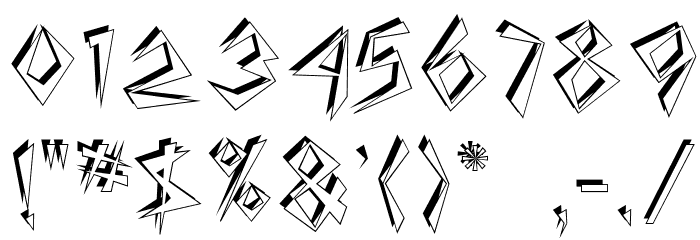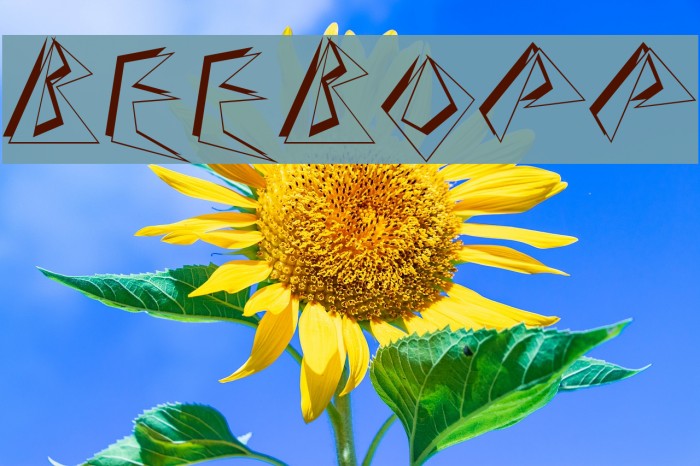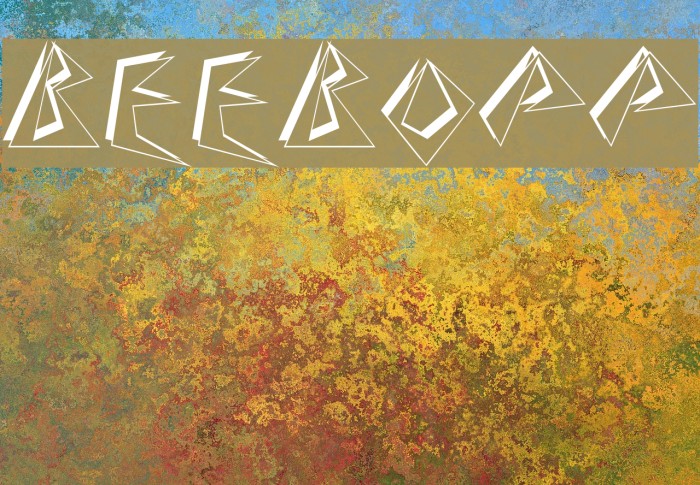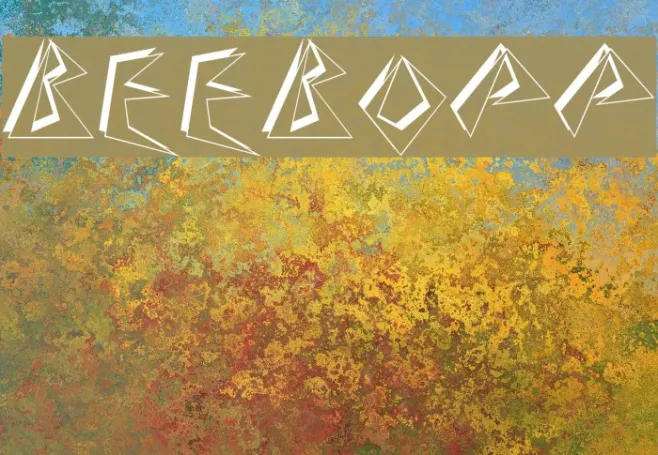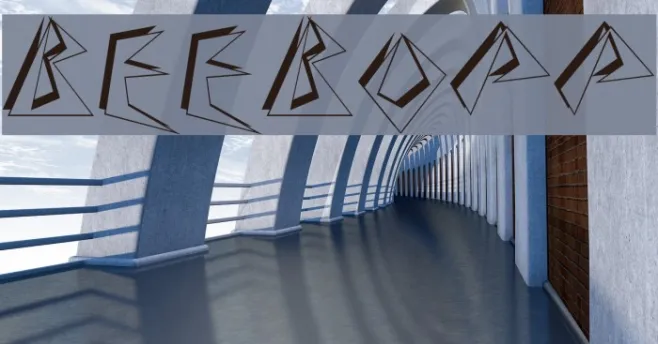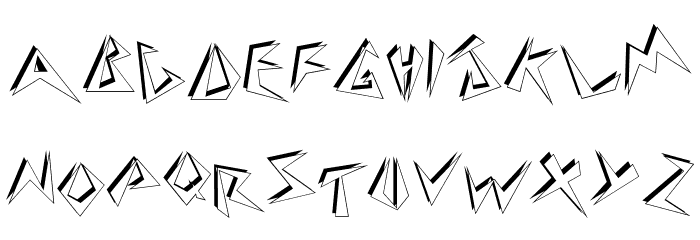
BeeBopp Font
BeeBopp Description
This font features a dynamic and edgy design with sharp, angular lines and a bold presence. Each character is crafted with a distinct geometric style, incorporating pointed edges and a sense of movement. The uppercase and lowercase letters maintain a consistent aesthetic, while the numbers and special characters follow suit with the same striking appearance. The font's unique structure makes it stand out, offering a modern and unconventional look that is both artistic and impactful.